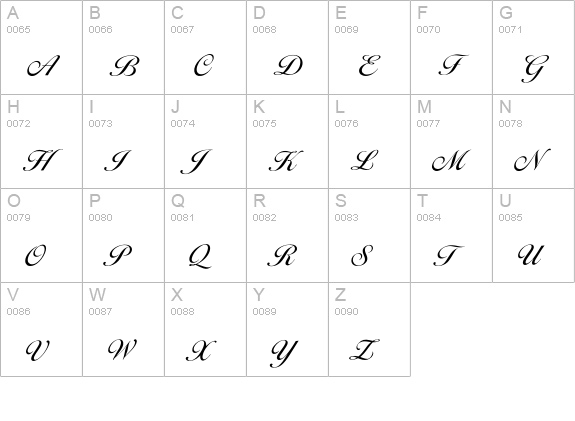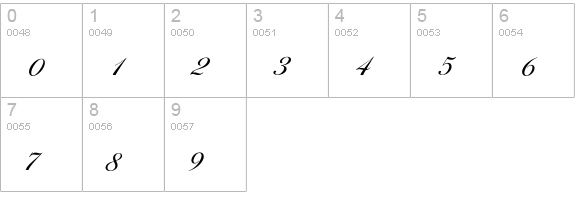
Iballantines-Regular Font Details
Iballantines-Regular is the standard, neutral variant in the Iballantines typeface family \xE2\x80\x94 well suited to general body text, paragraphs, and standard typographic work.
Iballantines-Regular font is a versatile and elegant typeface that adds a touch of sophistication to any design project. With its clean lines and balanced proportions, this font is perfect for both headings and body text. The Iballantines-Regular font features a timeless and classic design, making it suitable for a wide range of applications, from branding and packaging to editorial design and website headers. Its versatility ensures that it can be used in various contexts, while still maintaining its unique personality. One of the standout features of Iballantines-Regular font is that it is freely available to download at FontsMarket.com. This means that designers and creatives can access this font without any cost, making it an excellent choice for those working on tight budgets or personal projects. Whether you're looking to create a professional logo, design a stylish invitation, or craft a captivating website, Iballantines-Regular font is sure to elevate your work and leave a lasting impression. Its effortless beauty and exceptional legibility make it a must-have for any designer's toolkit. Don't miss out on the opportunity to enhance your designs with Iballantines-Regular font. Download it for free today at FontsMarket.com and unlock the endless creative possibilities it offers.